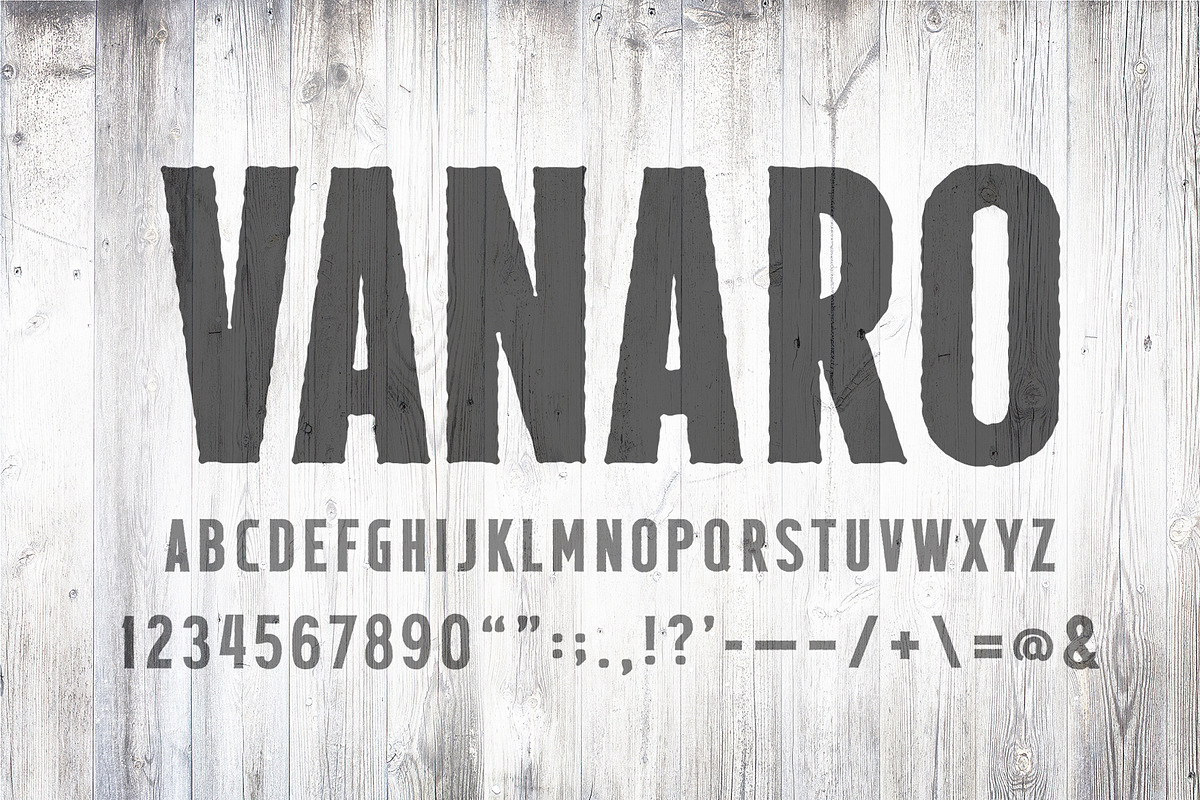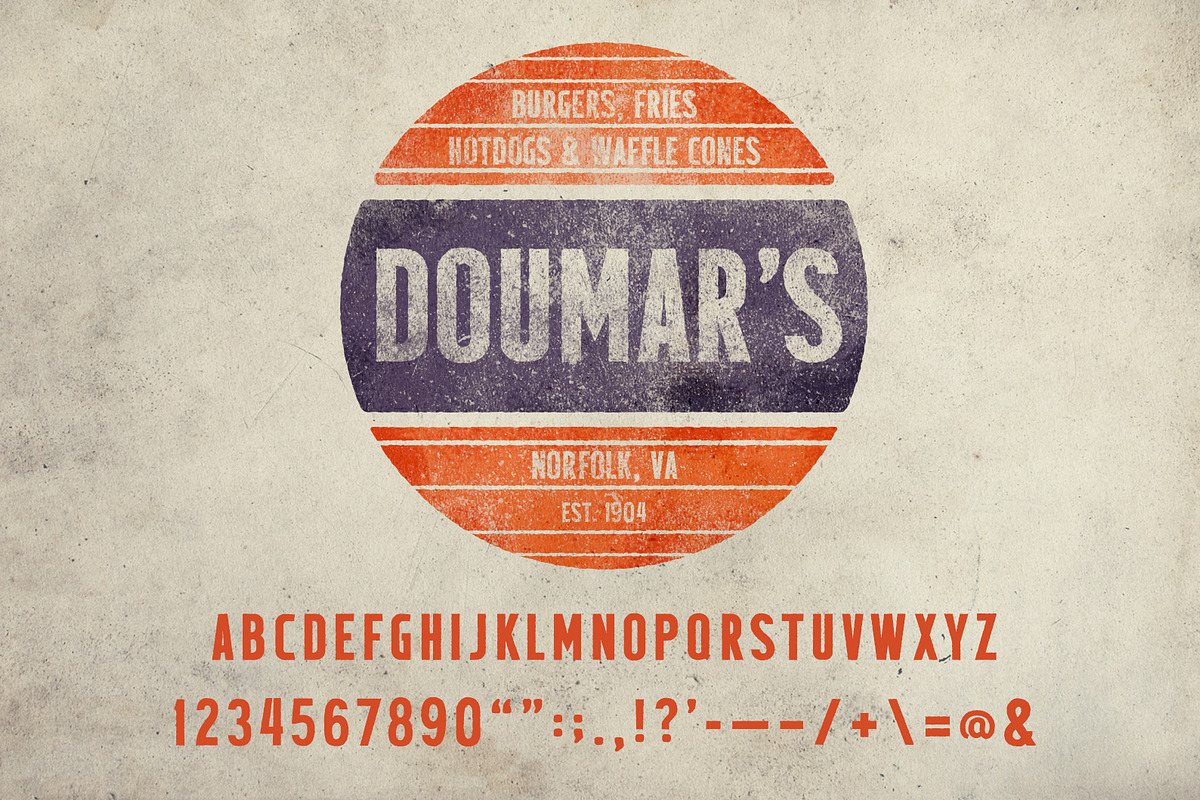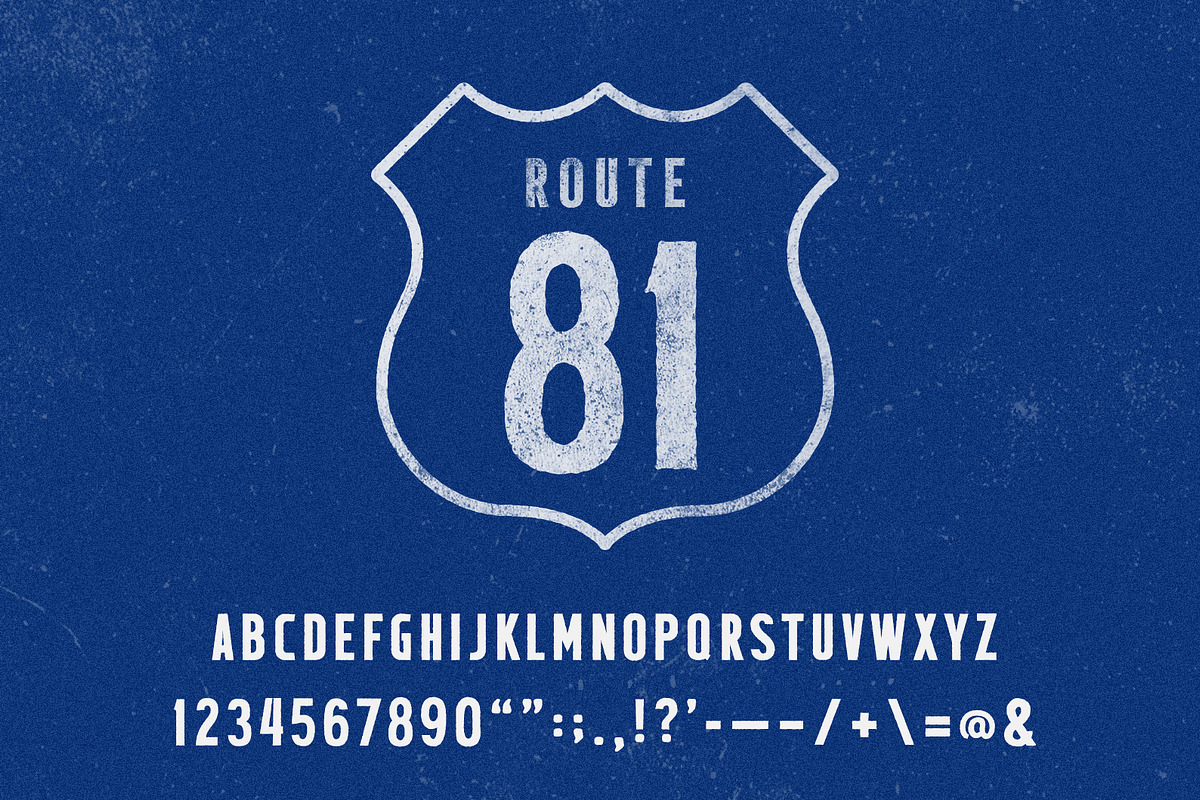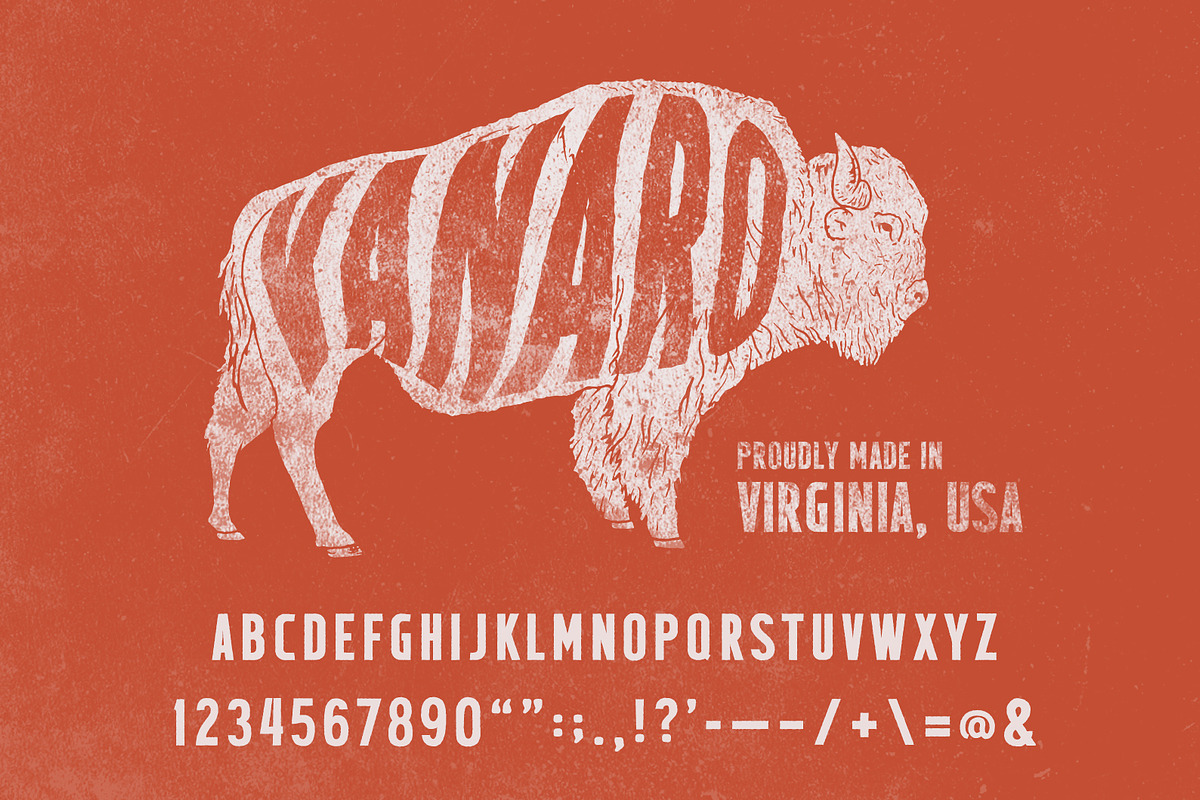
VANARO - Sans Serif Display Font
VANARO - Sans Serif Display Font by SUH-NY is a font selected for branding, posters, packaging, typography.
VANARO - Sans Serif Display Font by SUH-NY fits naturally into Branding, posters, packaging, typography.